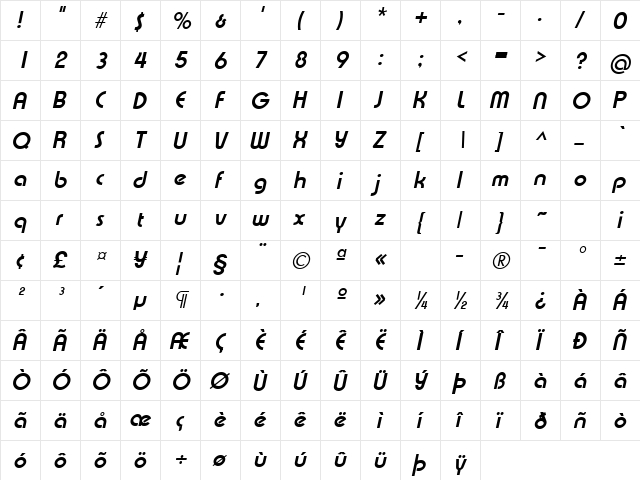
GE Expression Bold Italic
Design Context for GE Expression Typeface
GE Expression takes a measured approach to typography — its balanced proportions and neutral character make it a reliable workhorse for both digital and print work. The dynamic lean of this cut emphasises speed and emphasis in any layout. The heavy weight commands attention and anchors typographic hierarchies.